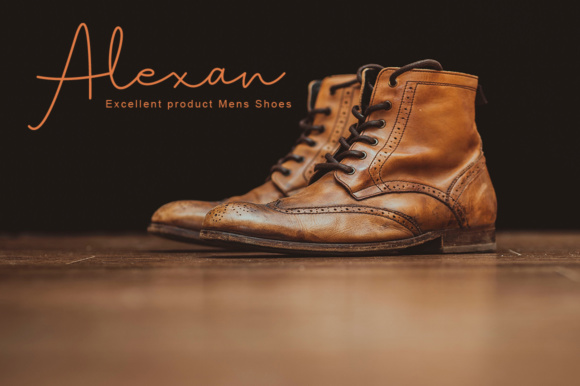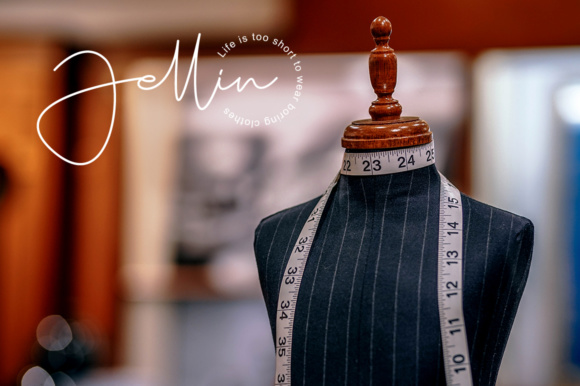
Tallitha Handwritten Font
Hi Everyone! You will get a new fresh handmade signature font, which will be good for all your design needs. Introducing Tallitha Font. Tallitha is an created by alphArt. The Tallitha is a stylish handwritten font. Its modern style and elegant swashes make it look natural and stylish. Perfect for any design that needs a handwriting look.